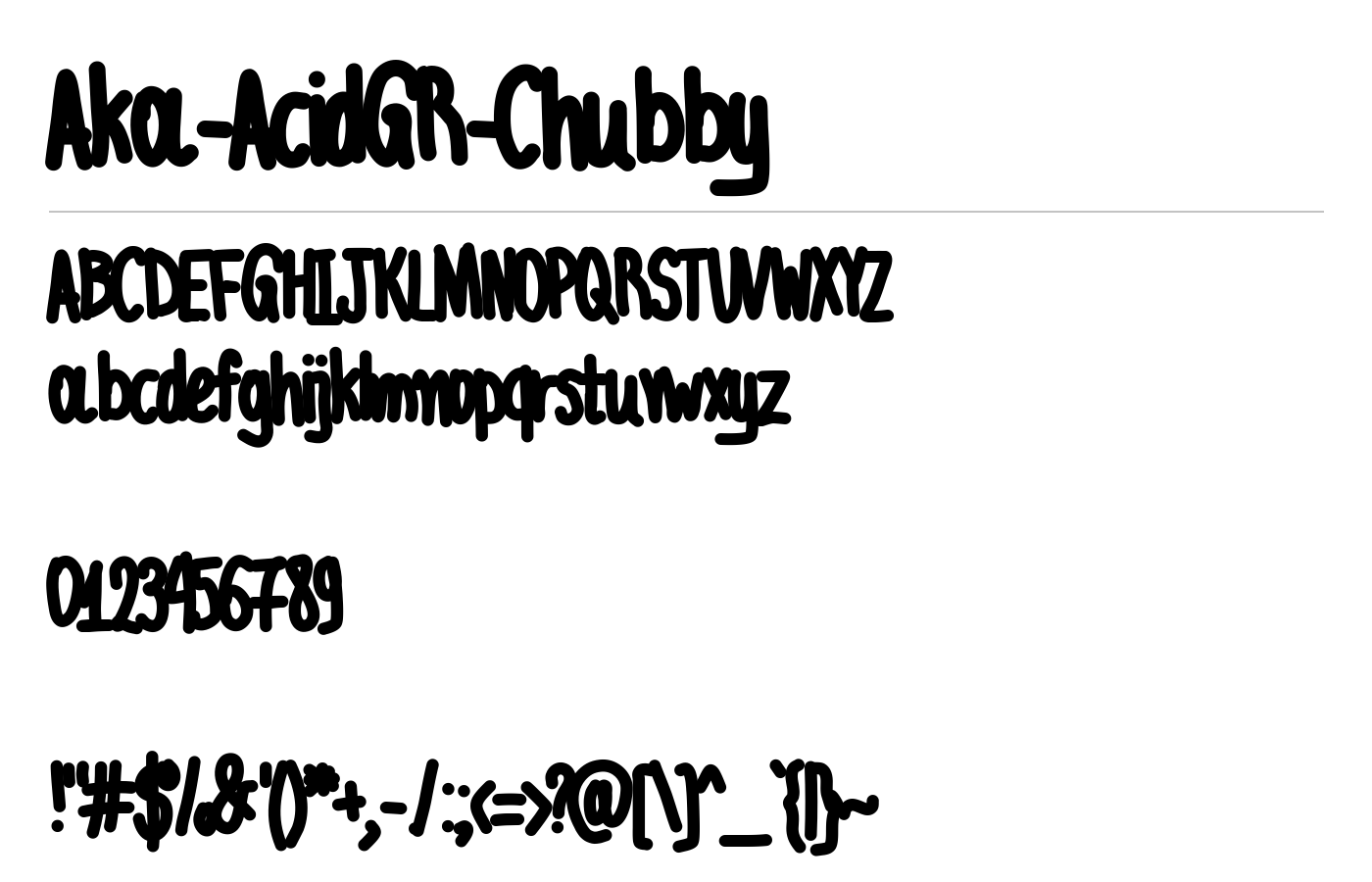
Aka-AcidGR-Chubby is a bold, playful handwritten sans-serif font characterized by its thick, rounded strokes and a casual, informal style. Its chubby letterforms with tight spacing and slightly irregular shapes convey a friendly and approachable vibe, making it ideal for fun, youth-oriented designs such as posters, logos, and creative branding. This font works well where a bold, energetic, and whimsical tone is desired.
| Font family | Aka-AcidGR-Chubby Font |
| Designer | Cyberella |